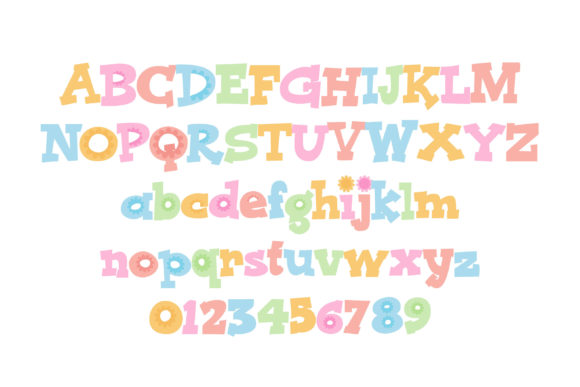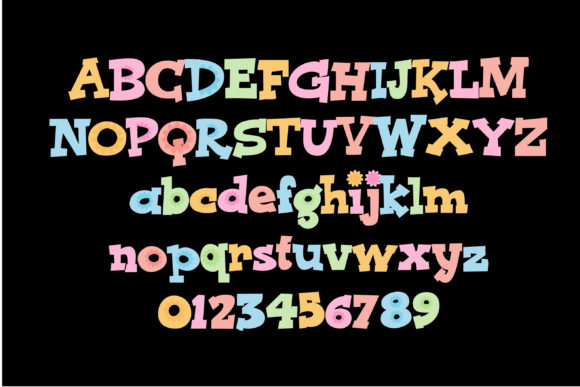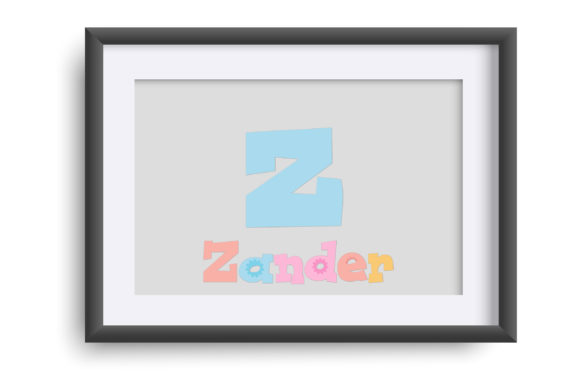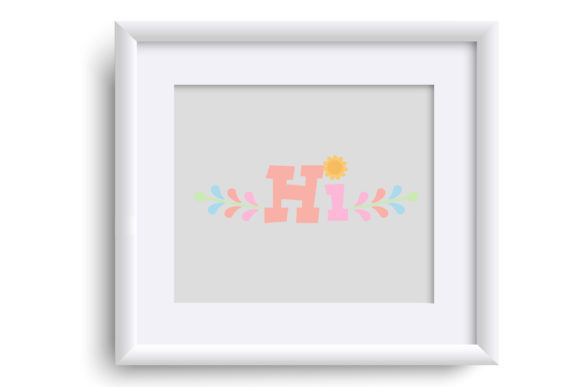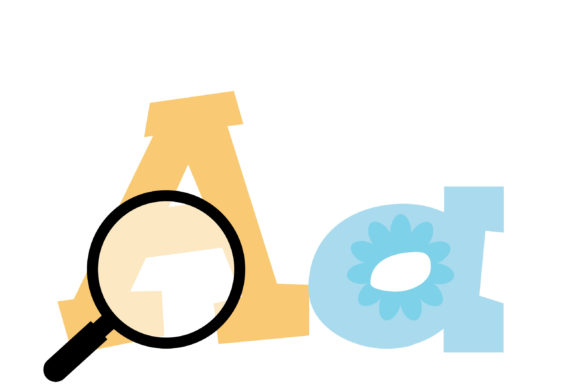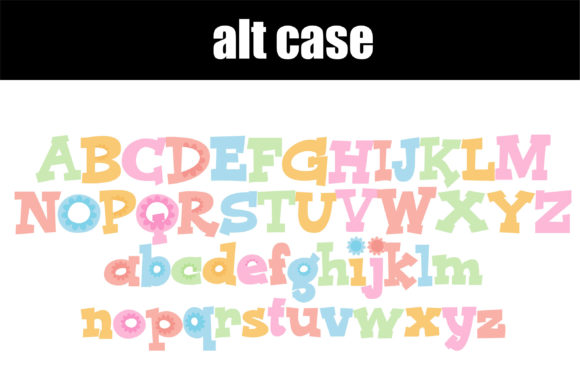
Introducing Floro Dos Font: A Beautiful, Full-Color Font for Your Creative Projects
Are you looking for a unique and eye-catching font to elevate your designs? Look no further than Floro Dos Font, a stunning full-color font that features pastel lettering and occasional flowers. This gorgeous font is perfect for designers and crafters who want to add a touch of elegance and whimsy to their projects.
What Makes Floro Dos Font So Special?
Floro Dos Font is a one-of-a-kind font that boasts a range of beautiful features. Every letter has a unique and beautiful touch, which will make your design come alive. The font features pastel lettering, which gives it a soft, romantic feel that’s perfect for a variety of design projects. Additionally, the font includes occasional flowers, which add a playful and whimsical touch.
PUA Encoding for Easy Access to Glyphs and Ligatures
Using Floro Dos Font in Your Design Projects
Floro Dos Font is a versatile font that can be used in a wide range of design projects. Here are a few ideas to get you started:
- Paper crafting: Use Floro Dos Font to create beautiful card designs, gift tags, and other paper crafts.
- Graphic design: Incorporate Floro Dos Font into your graphic design projects, such as brochures, flyers, and posters.
- DIY projects: Use Floro Dos Font to add a personal touch to your DIY projects, such as scrapbook pages, journal entries, and home decor items.
Tips for Getting the Most Out of Floro Dos Font
To get the most out of Floro Dos Font, here are a few tips:
- Experiment with different colors: Floro Dos Font is a color font, which means you can experiment with different colors and combinations to find the perfect look for your design.
- Use the glyphs and ligatures: Don’t be afraid to get creative with the font’s glyphs and ligatures. These special characters can add a unique touch to your design and help it stand out.
- Pair it with other fonts: Floro Dos Font can be paired with other fonts to create a unique and interesting look. Experiment with different font combinations to find the perfect pairing.
Floro Dos Font is a beautiful, full-color font that’s perfect for designers and crafters who want to add a touch of elegance and whimsy to their projects. With its pastel lettering, occasional flowers, and PUA encoding, this font is sure to become a favorite in your design arsenal. Whether you’re working on a graphic design project, a paper craft, or a DIY project, Floro Dos Font is a versatile font that can help you create stunning designs and projects.